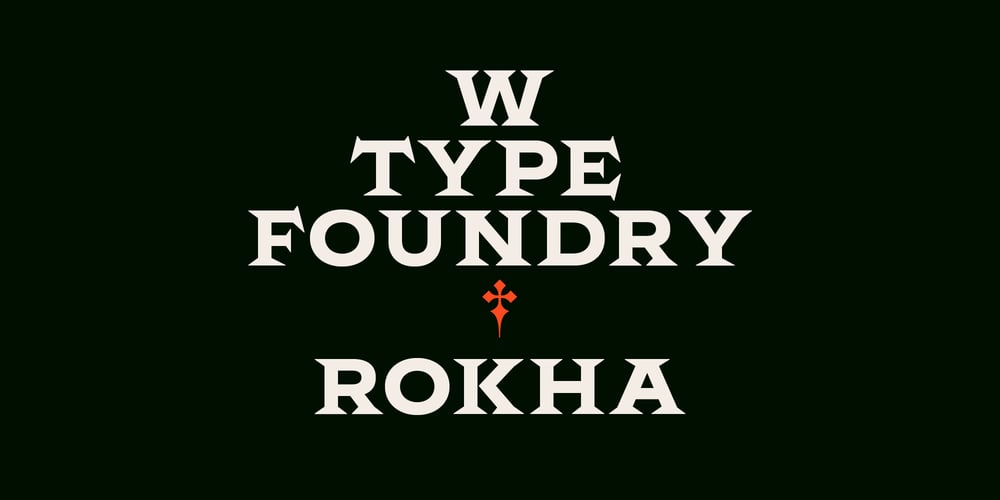
Rokha Font Family was designed by Patricio Truenos, Gaspar Muñoz and published by W Type Foundry. Rokha contains 10 styles and family package options. Rokha is a wedge-serif typeface with 5 weights plus obliques. Its sharp serifs were inspired by Goudy’s classic Copperplate Gothic, Rokha feels land looks like carved stone, edgy and sharp.Serifs are exaggerated, pointy, and strong, this font demands attention from the viewer at all costs.Lower and uppercase letters make it more amicable in different contexts and give it extra versatility.Its striking presence makes it ideal for display, headlines, posters, big branding, and catching any viewer’s eye.